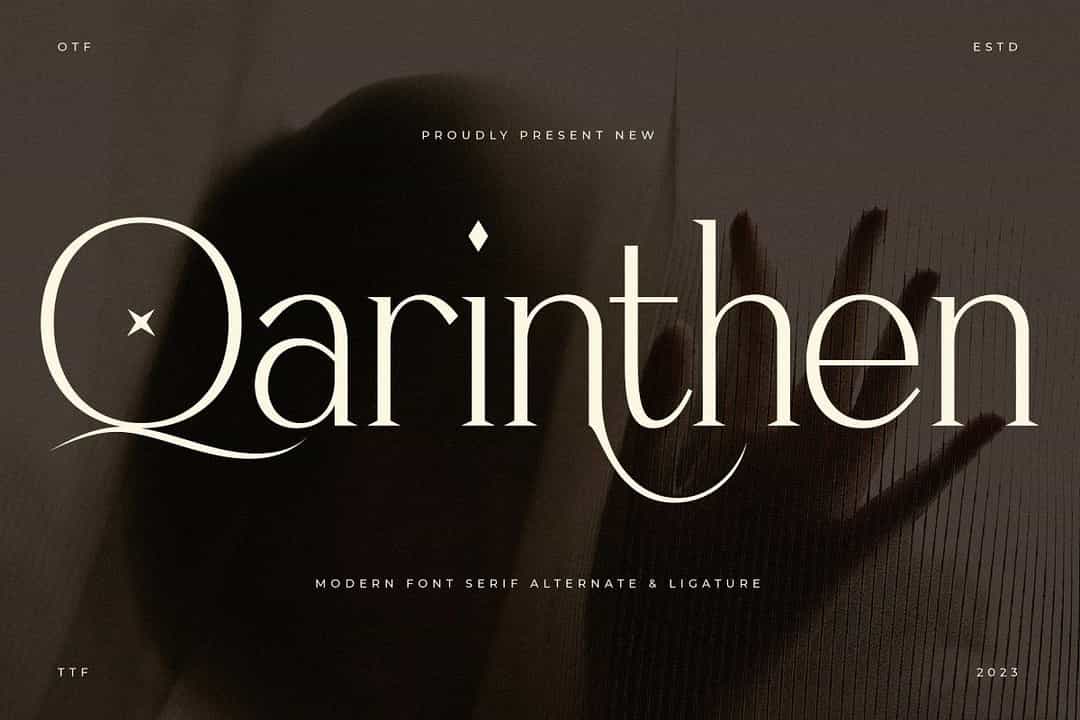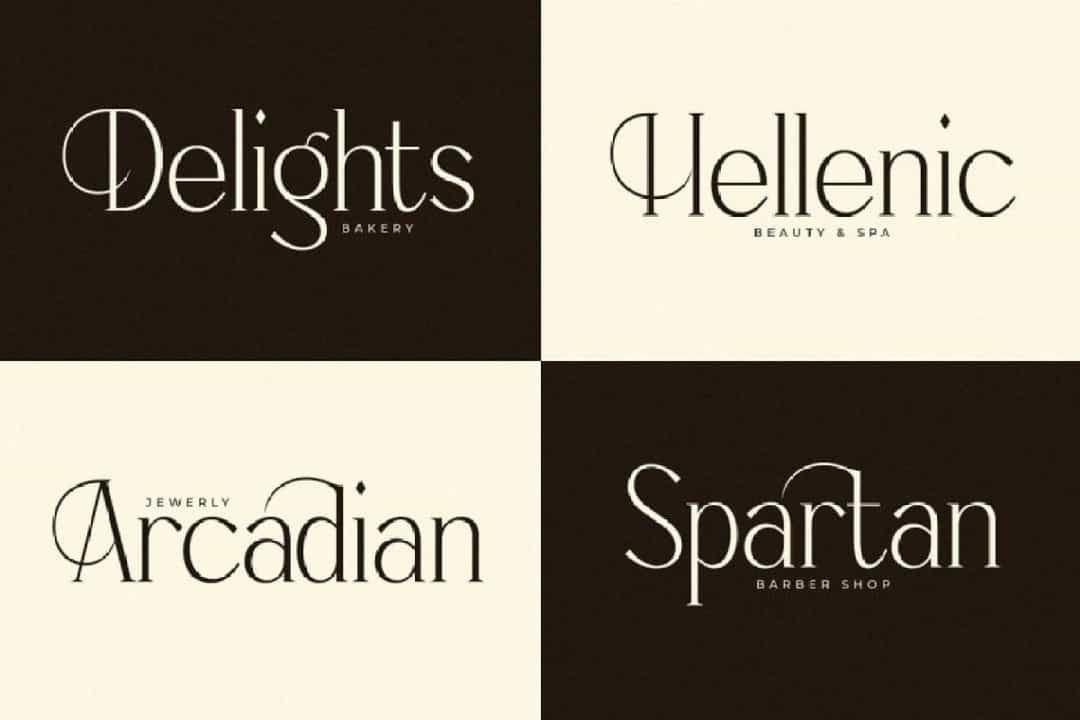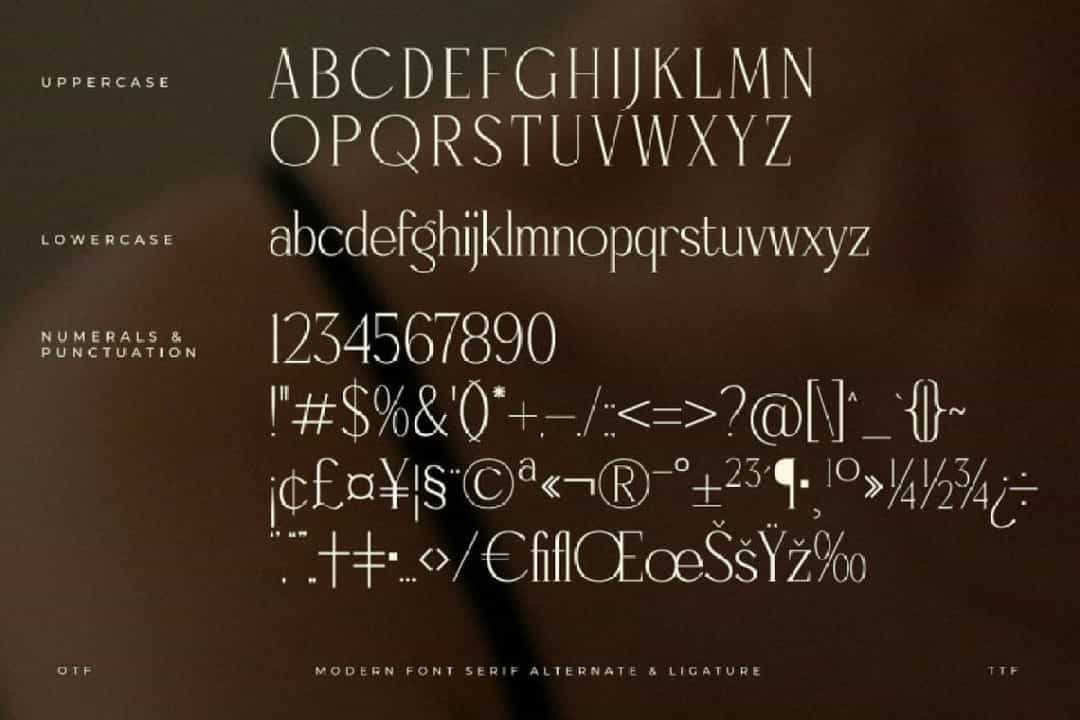
Qarinthen Font
Qarinthen is a modern serif typeface with distinct style and modern appearance, perfect for creating sophisticated logos, movie or book titles, fashion label clothing labels, magazine letters, quotes, etc.